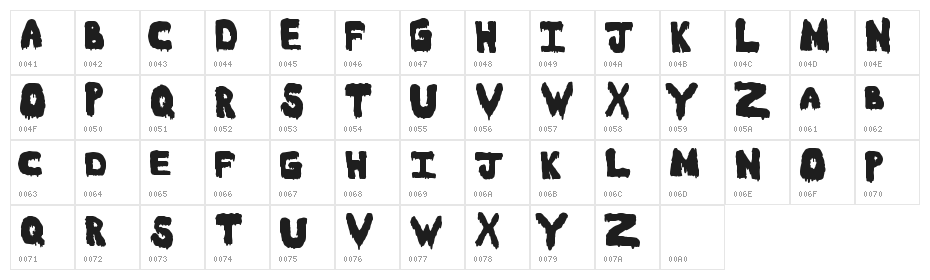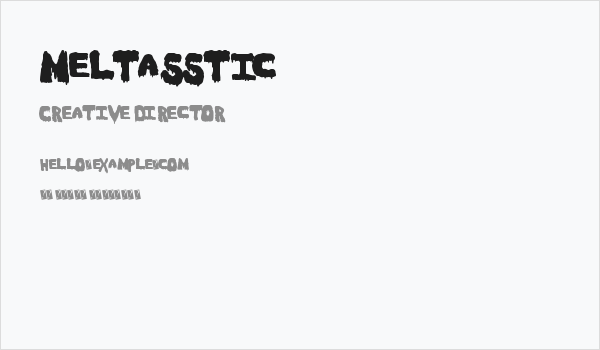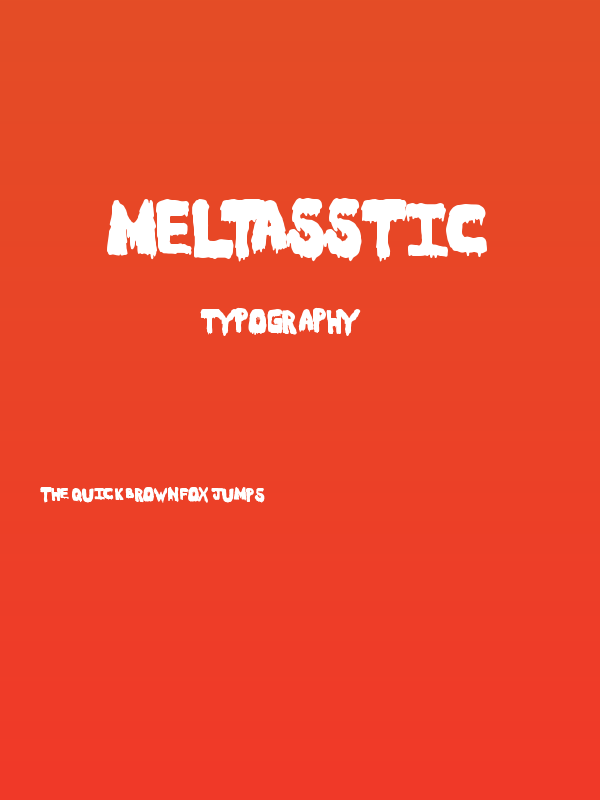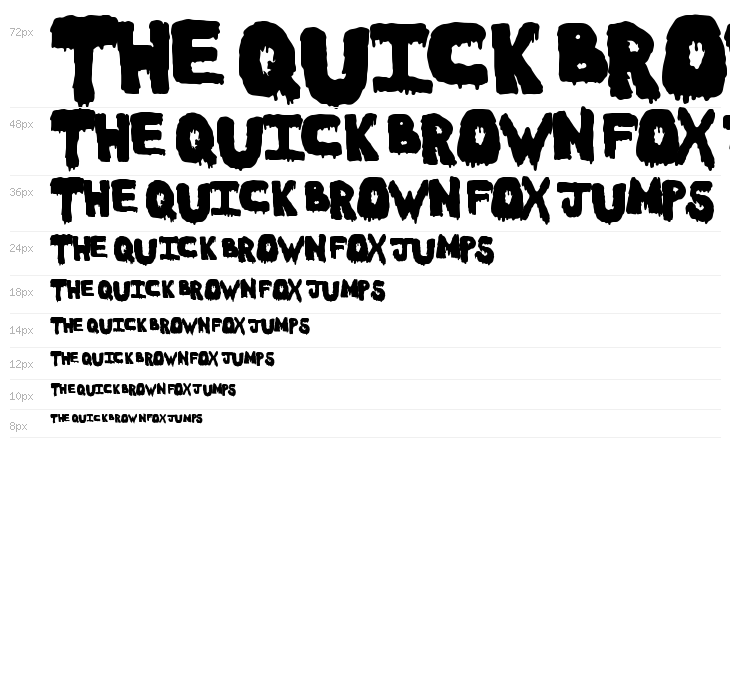
Meltasstic Font
Meltasstic Description
This font features a bold and dramatic style with a dripping effect that gives it a melting appearance. The characters are thick and uneven, creating a sense of movement and fluidity. This unique design is eye-catching and ideal for creative projects that require a standout typeface. The uppercase and lowercase letters maintain a consistent style, with exaggerated curves and edges that enhance the melting effect. The font's playful yet edgy aesthetic makes it suitable for themes related to horror, Halloween, or any project that seeks to convey a sense of chaos or transformation.
| Use Case | Headlines, Posters, Logos |
| Proposed Projects | Ideal for Halloween-themed graphics, horror movie posters, edgy branding, or any project needing a dramatic and unique typeface. |